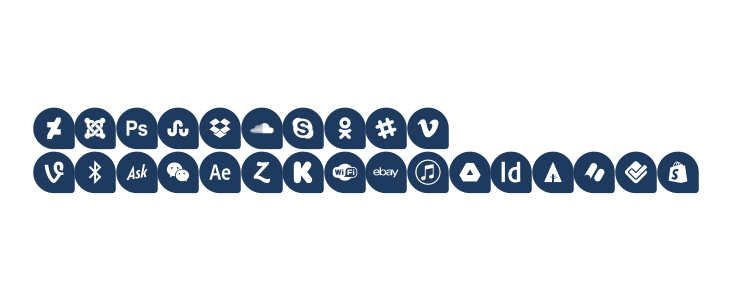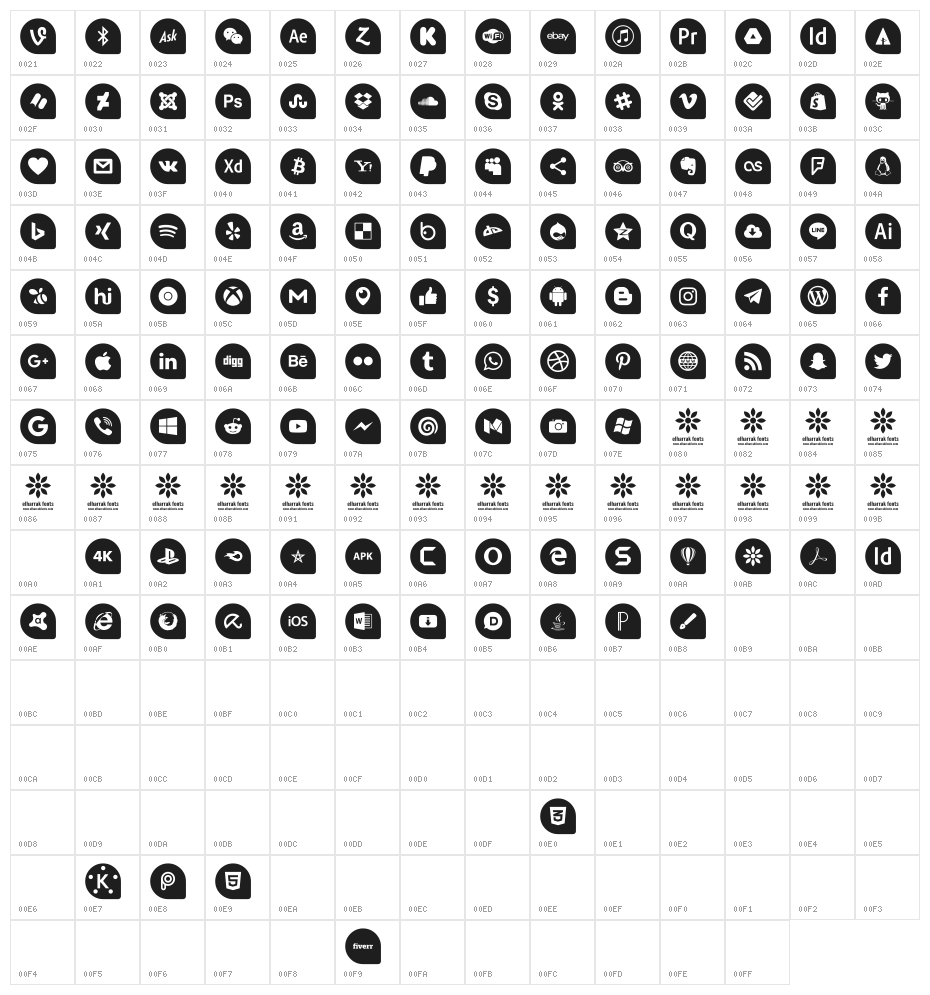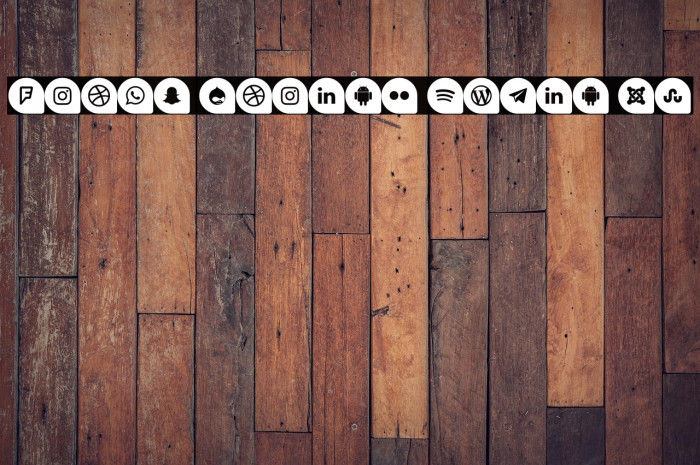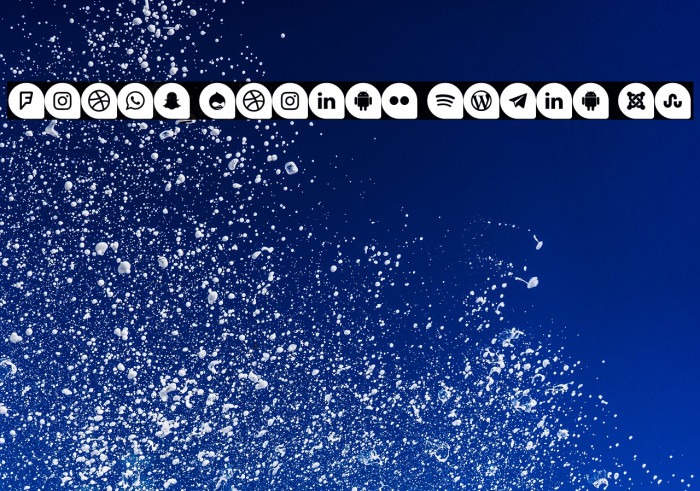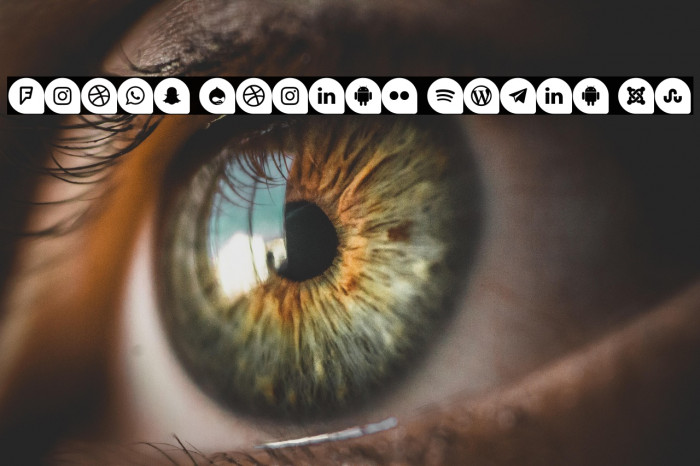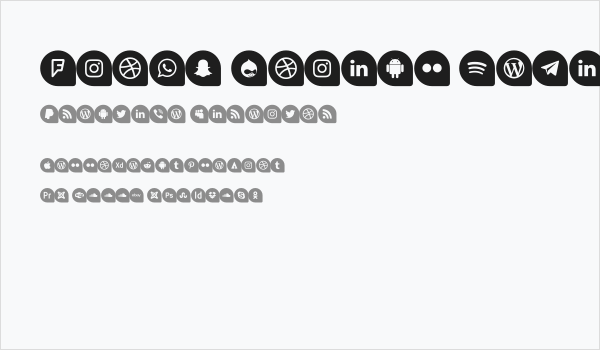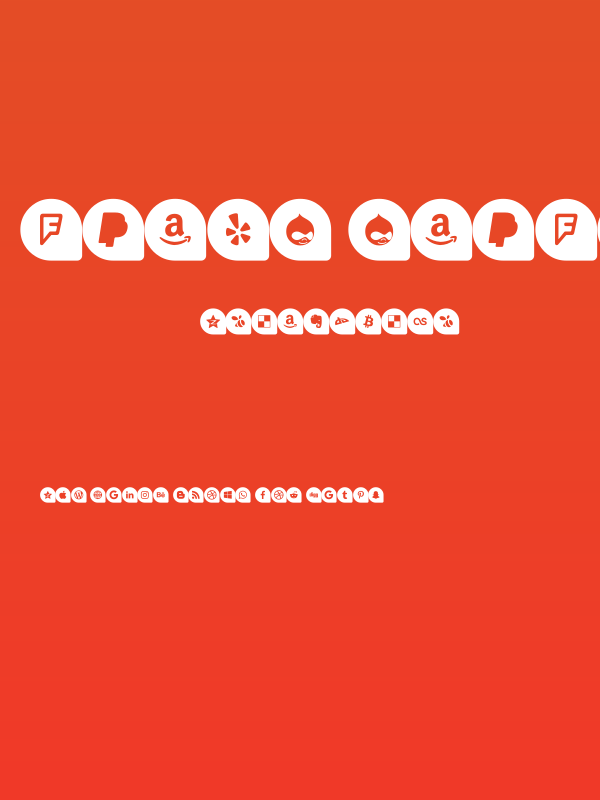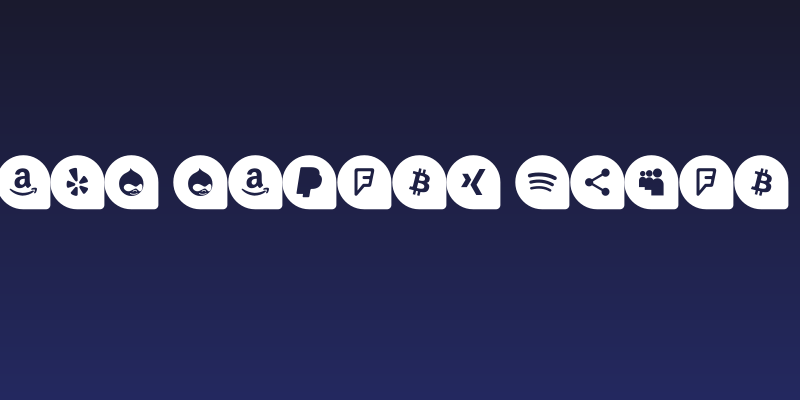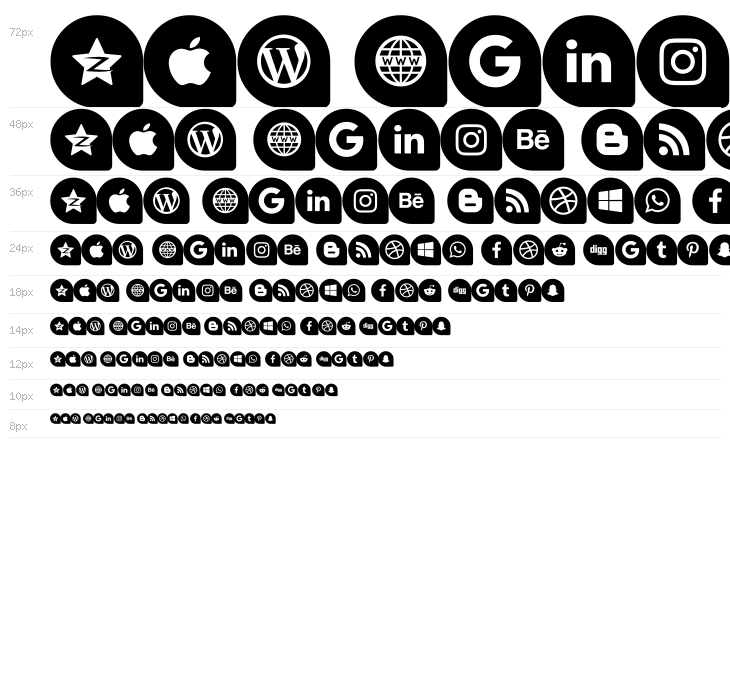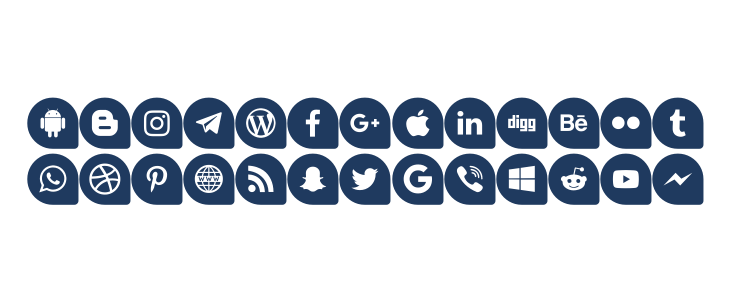
Icons Social Media 13 Font
Icons Social Media 13 Description
A set of social media and tech brand icons, each enclosed in a rounded, speech-bubble-like black shape with white glyphs or logos. The icons are bold, simple, and highly legible, designed for clear recognition at small sizes.
| Overall Style | Modern, Minimalist, Decorative |
| Use Case | Icons, UI elements, Social media buttons |
| Proposed Projects | App interfaces, website footers, social media links, presentations, digital marketing materials. |